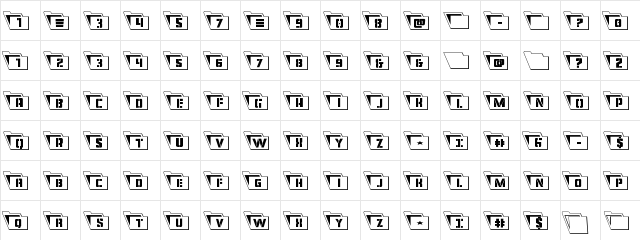
Eyes Only Outline Semi-Condensed Leftalic Outline Semi-Condensed Italic
Design Context for Eyes Only Outline Semi-Condensed Leftalic Typeface
Eyes Only Outline Semi-Condensed Leftalic brings ornamental detail and strong personality to headlines and identities, where visual impact matters more than quiet functionality. Its italic angle brings a sense of urgency and motion to the letterforms.
Font Pairing: Pair with a clean neutral sans-serif for body copy to let Eyes Only Outline Semi-Condensed Leftalic's character lead without overwhelming the composition.
Pro Tip: Treat Eyes Only Outline Semi-Condensed Leftalic as the centrepiece of your typographic hierarchy. One strong heading set in a decorative face can carry an entire layout.